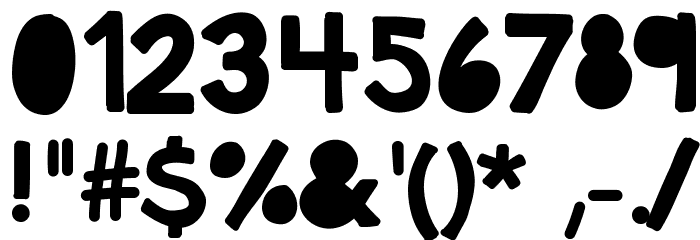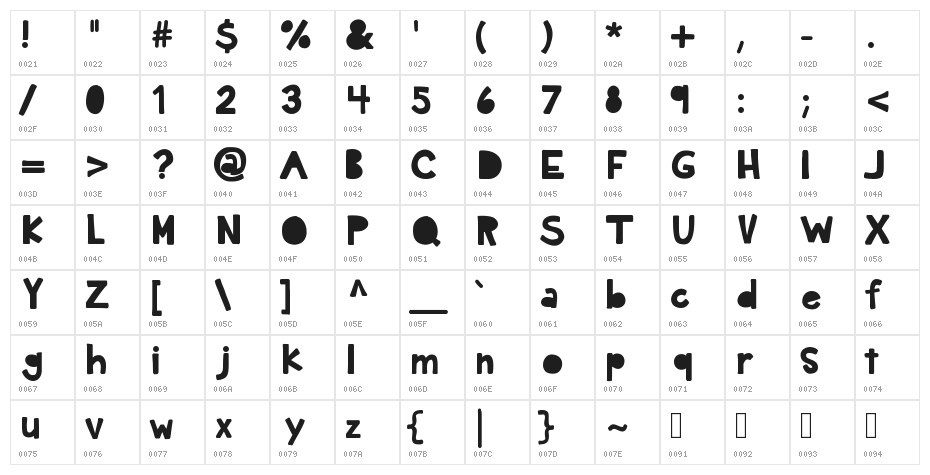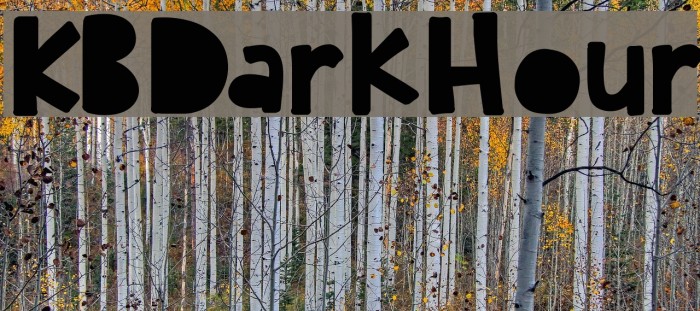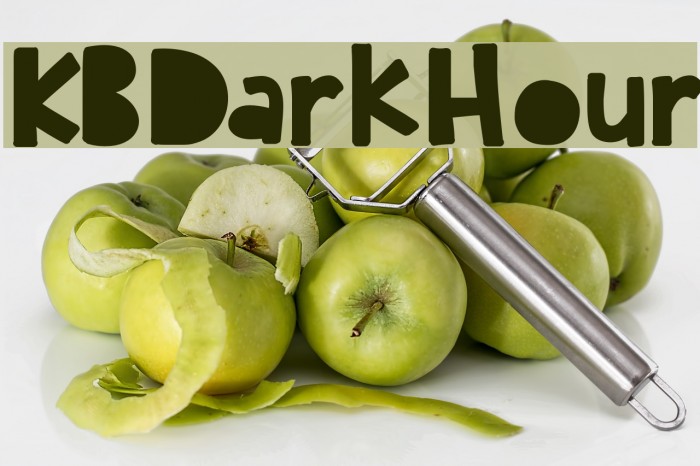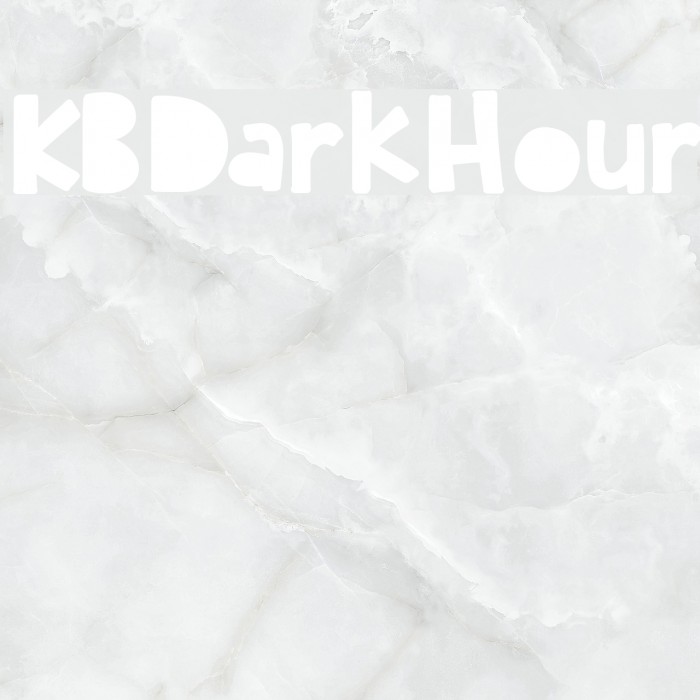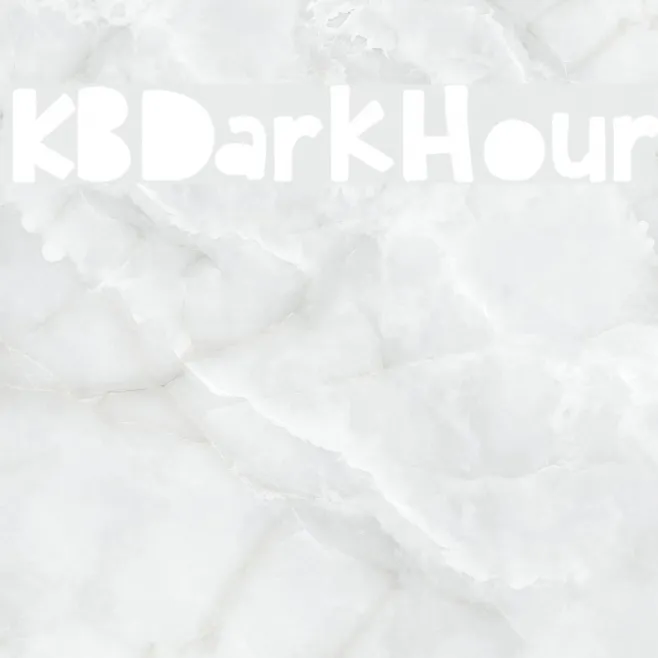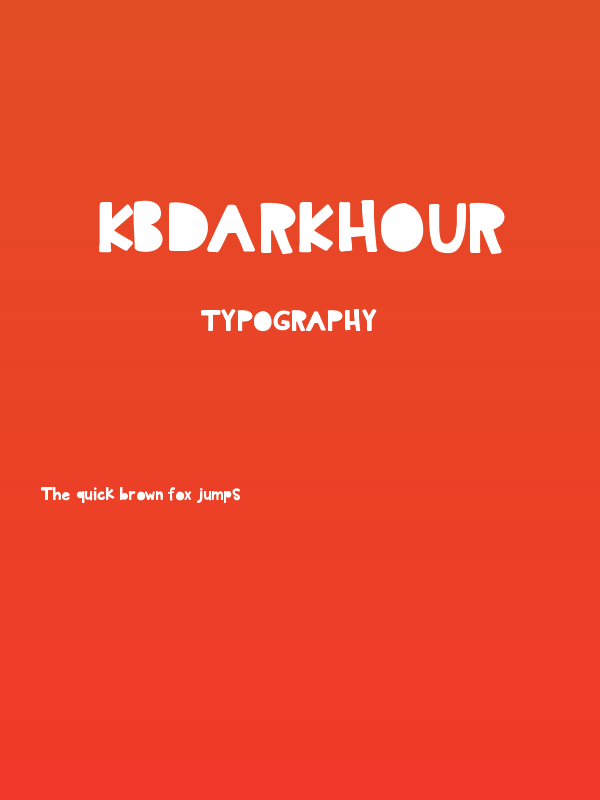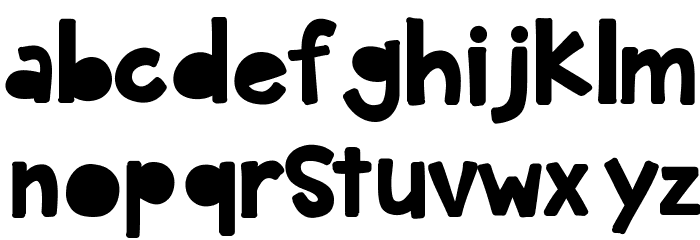
KBDarkHour Font
KBDarkHour Description
This font features bold, playful characters with a whimsical and slightly irregular design. The letters have a hand-drawn quality, with rounded edges and varying stroke thickness that adds a dynamic and lively feel. The uppercase and lowercase letters maintain a consistent style, while the numbers and special characters complement the overall aesthetic. The font's unique character shapes make it stand out, offering a friendly and approachable vibe. Its boldness ensures high visibility, making it suitable for eye-catching designs.
| Overall Style | Playful, Whimsical, Hand-drawn |
| Proposed Projects | Ideal for children's books, playful branding, posters, and creative projects that require a fun and engaging typeface. |